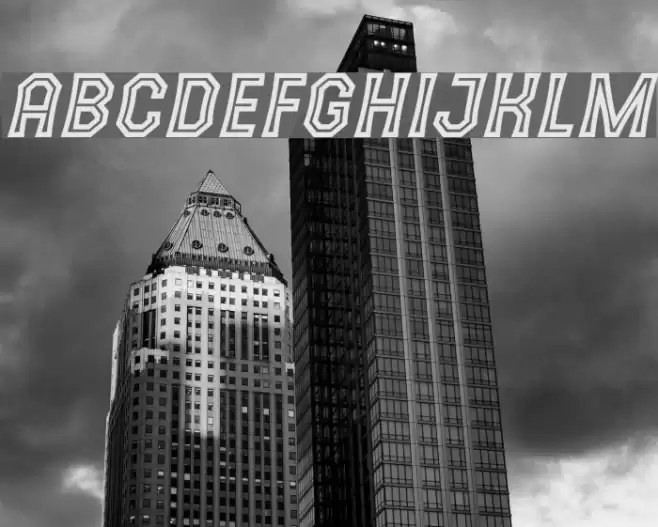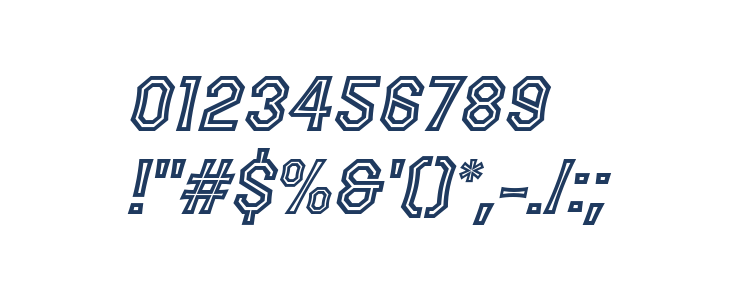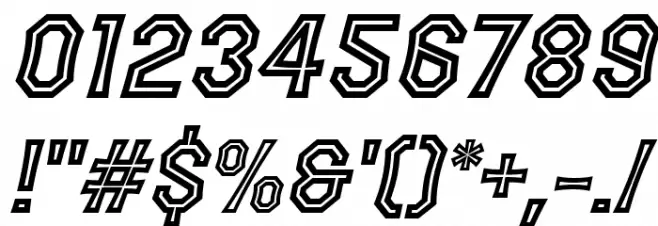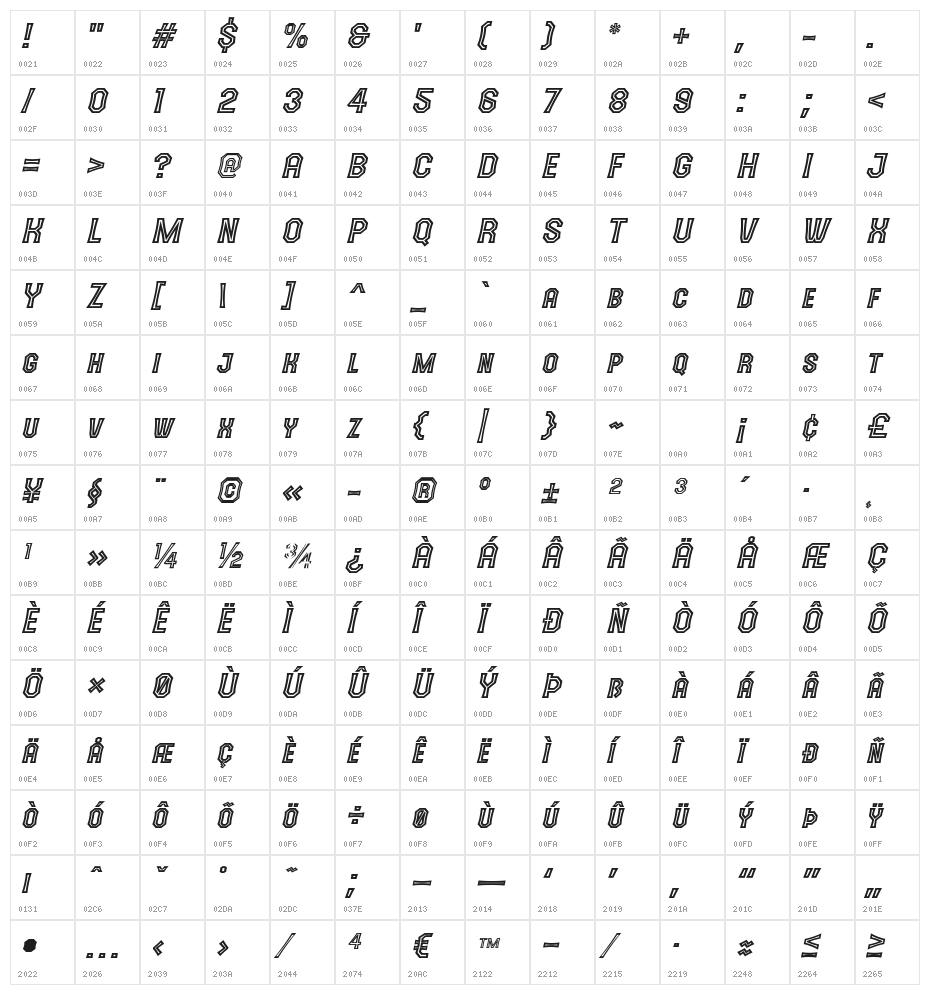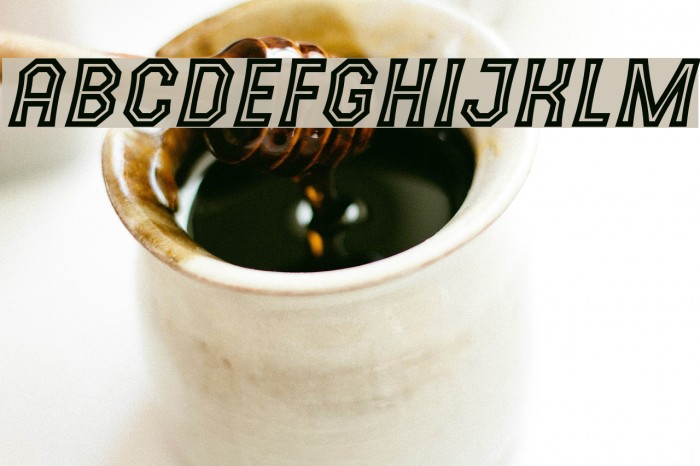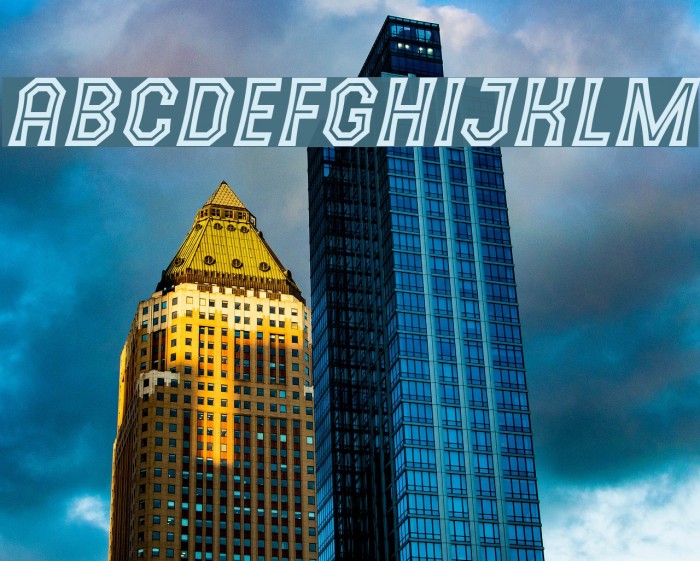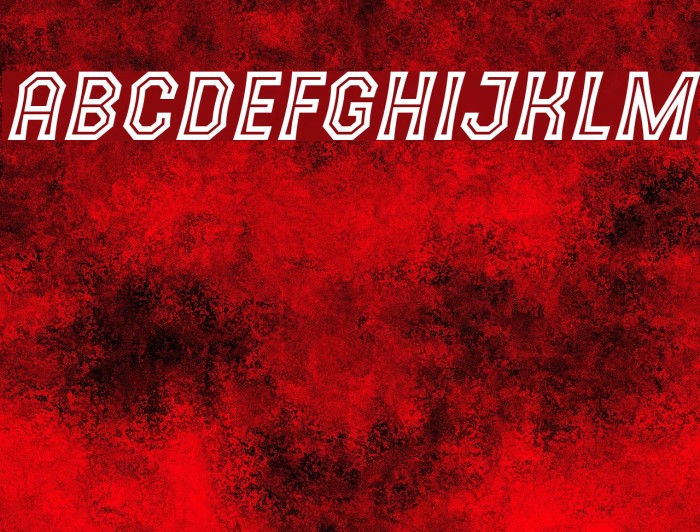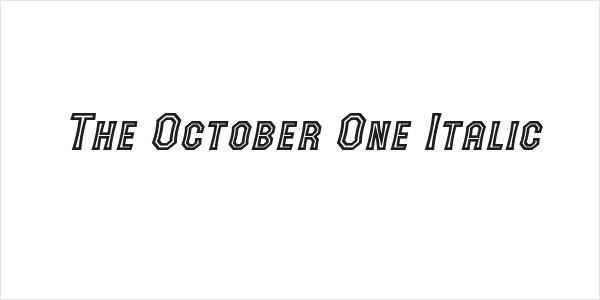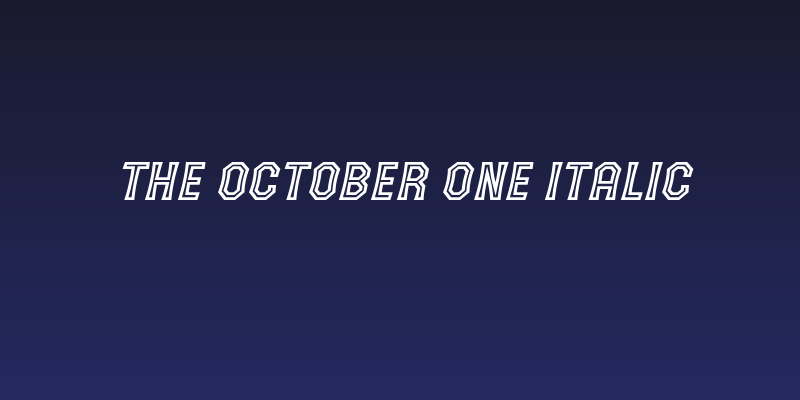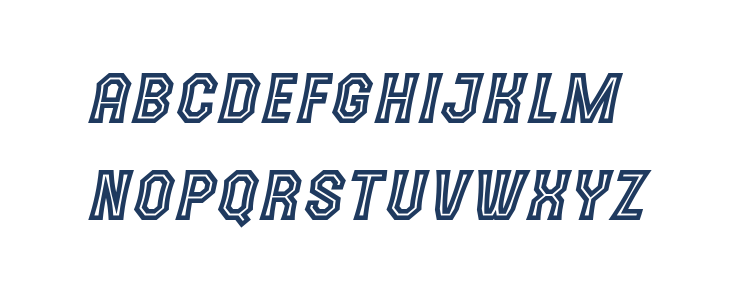
The October One Italic Font
The October One Italic Description
This font features a bold, italicized style with a distinctive outline that gives it a three-dimensional appearance. The characters are angular and geometric, with a consistent stroke width that enhances its modern and dynamic look. The uppercase and lowercase letters maintain a uniform height, contributing to a cohesive and structured design. The numerals and special characters are crafted with the same attention to detail, ensuring readability and visual appeal. This font's unique style makes it suitable for projects that require a strong and impactful typographic presence.
Bold, italicized font with a geometric, outlined style for a modern look from Uncategorized fonts.
- Proposed Projects: Ideal for branding, posters, headlines, and any design requiring a bold statement.